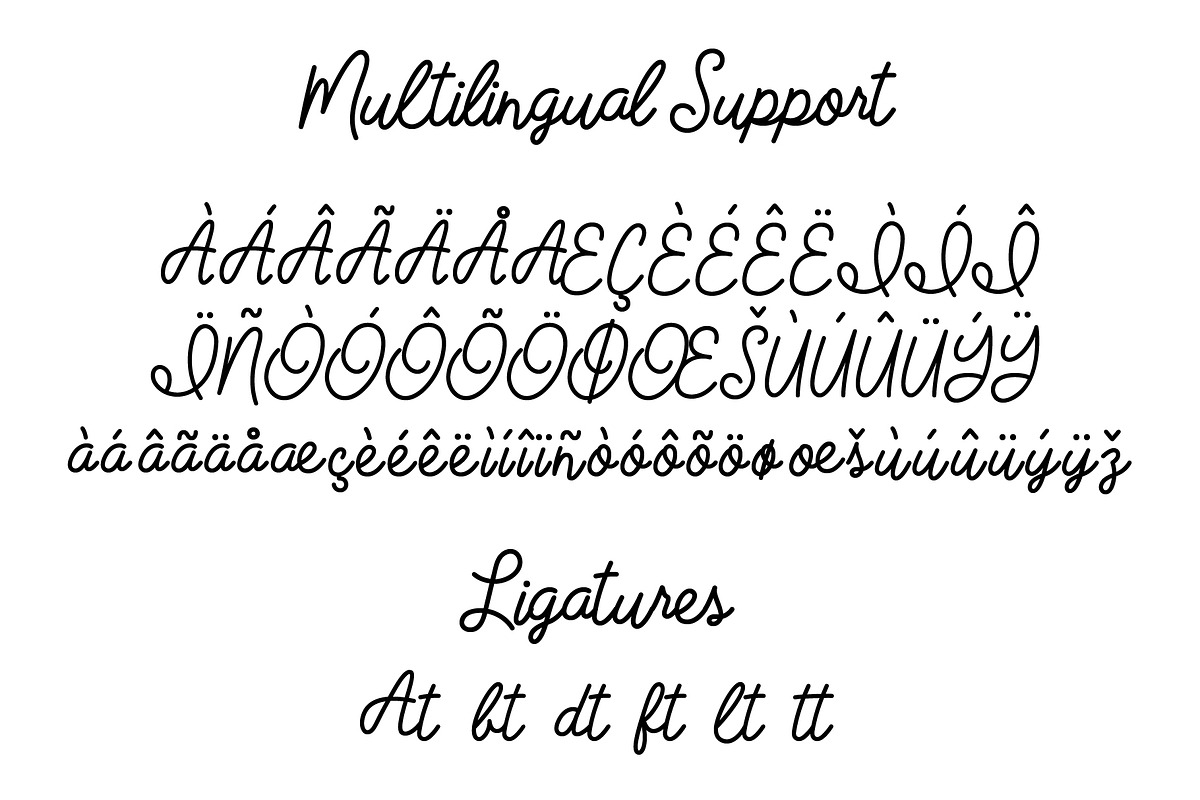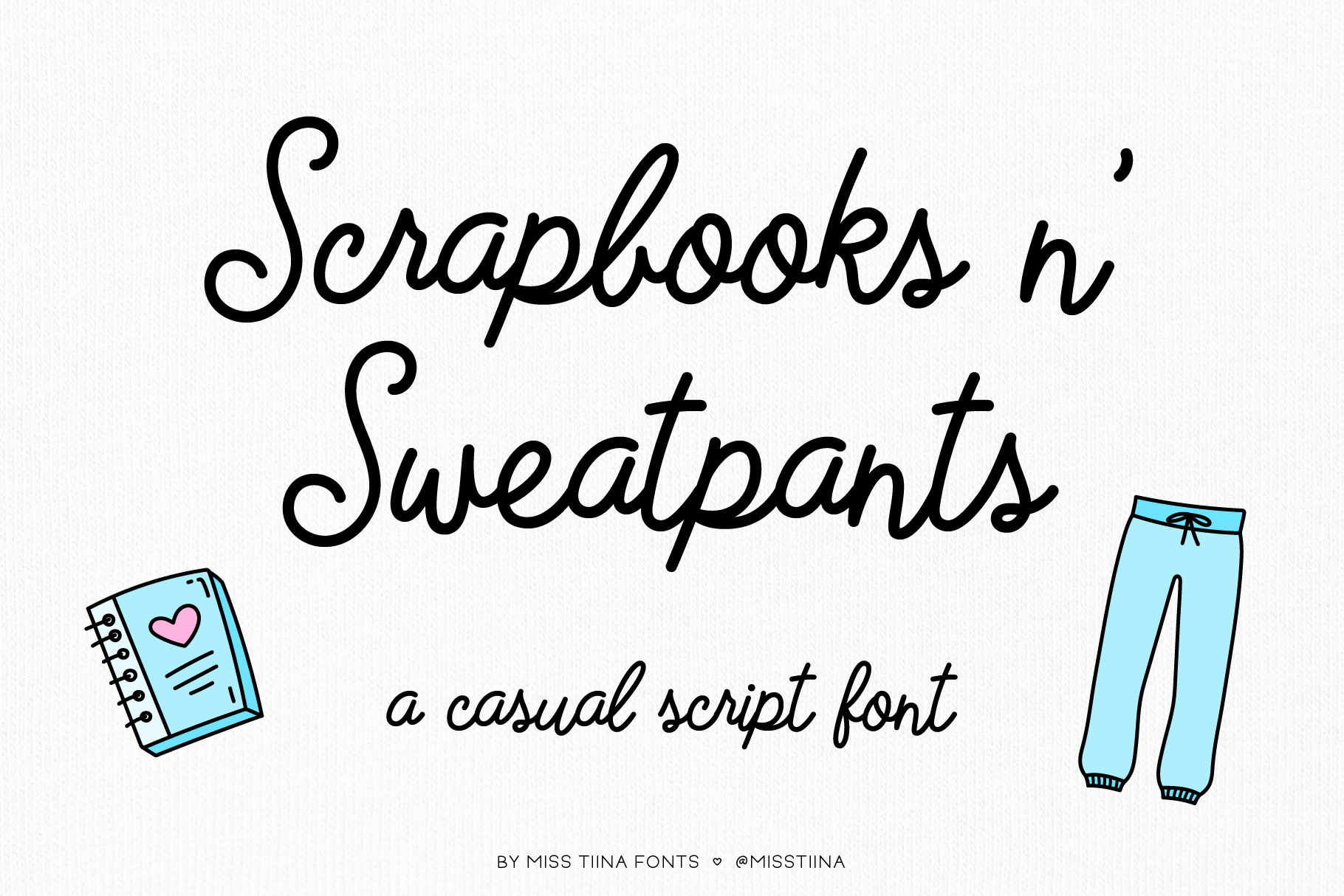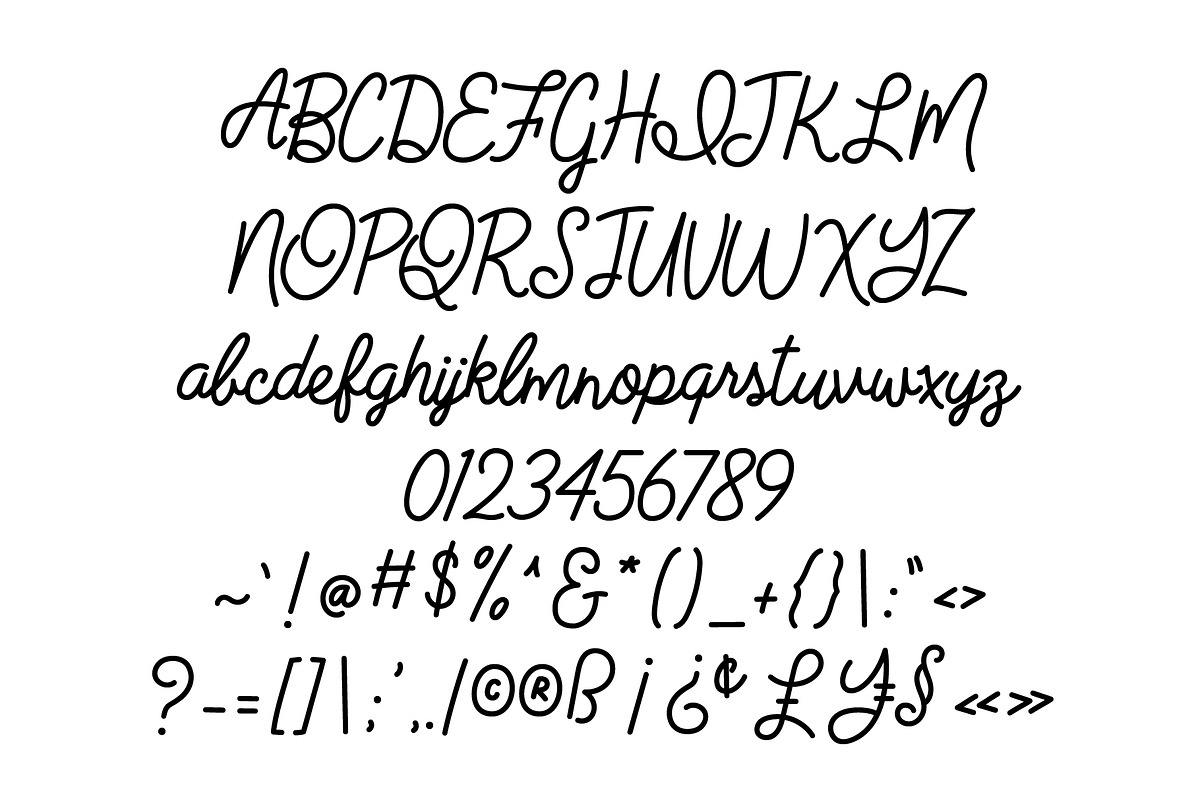
Scrapbooks n' Sweatpants Font
Scrapbooks n’ Sweatpants is an adorable and relaxing script font. Is suitable for professional-looking projects such as branding designs, labels, websites, and business cards as well as casual designs like packaging, posters, flyers, quotes, social media posts, invitations, special occasions cards, etc.